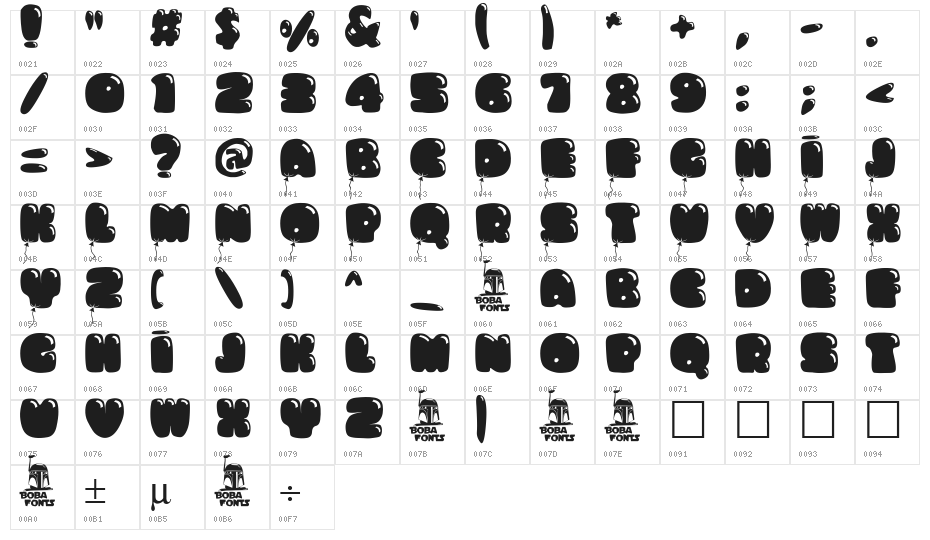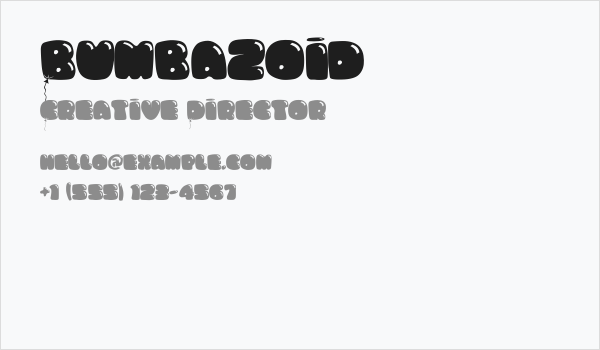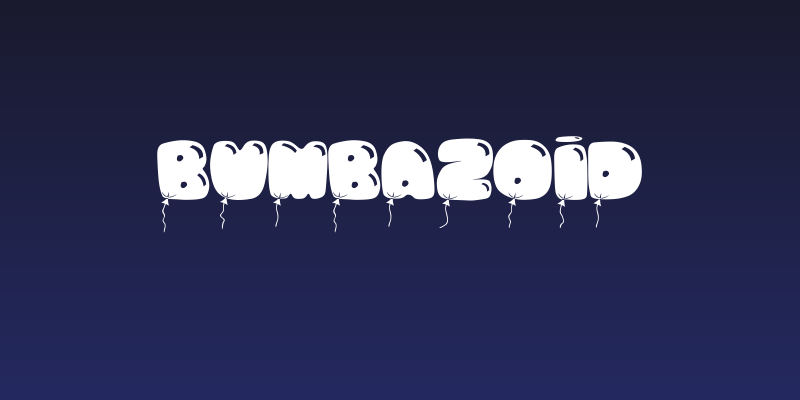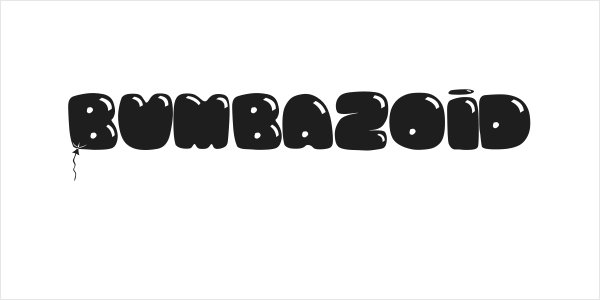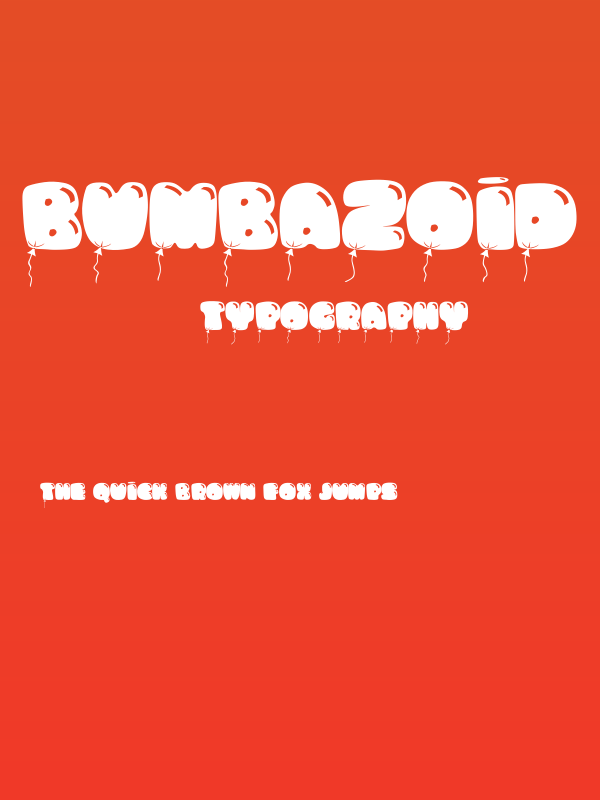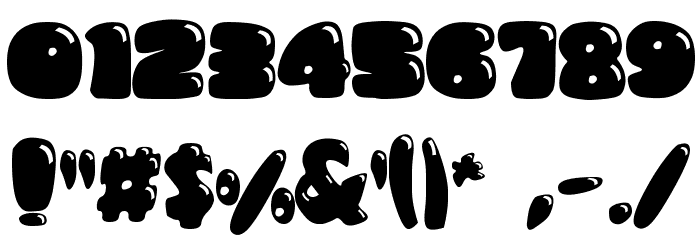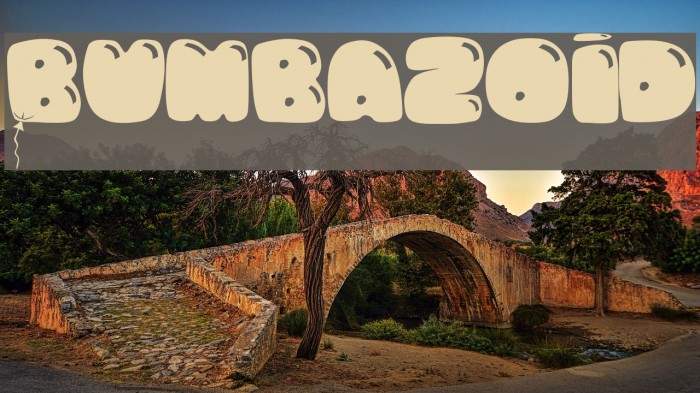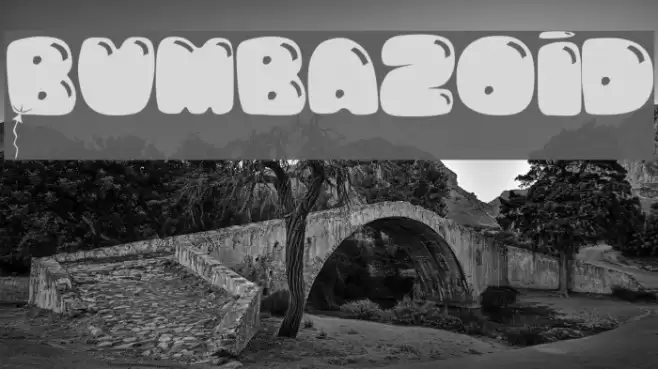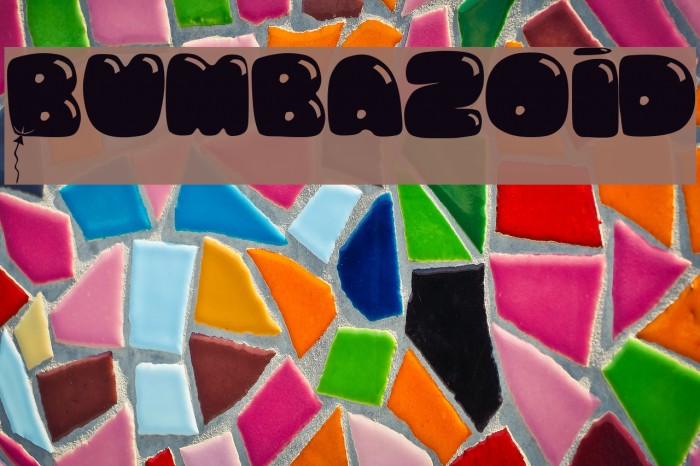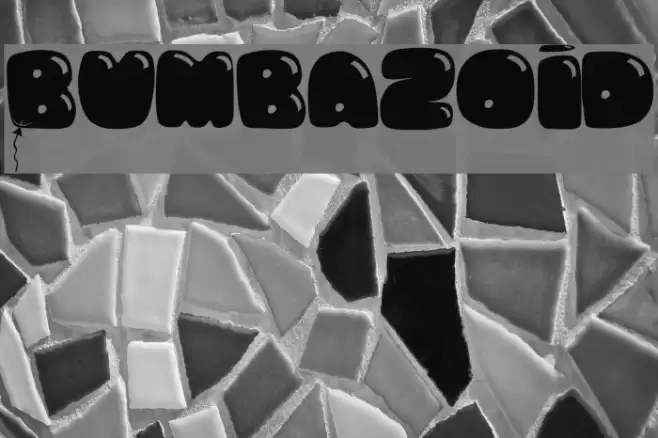
Bumbazoid Font
Bumbazoid Description
This playful and whimsical font features characters that resemble inflated balloons, giving a sense of buoyancy and lightheartedness. Each letter is rounded and bold, with a glossy finish that mimics the reflective surface of a balloon. The characters are tightly packed, yet maintain a sense of individuality with their unique shapes and slight variations in size. The font includes both uppercase and lowercase letters, numbers, and a variety of special characters, all maintaining the same balloon-like aesthetic. This font is perfect for projects that require a fun and festive touch, such as children's party invitations, playful branding, or any design that aims to evoke joy and celebration.
| Overall Style | Playful, Whimsical |
| Proposed Projects | Ideal for children's party invitations, playful branding, festive posters, and any design needing a joyful touch. |